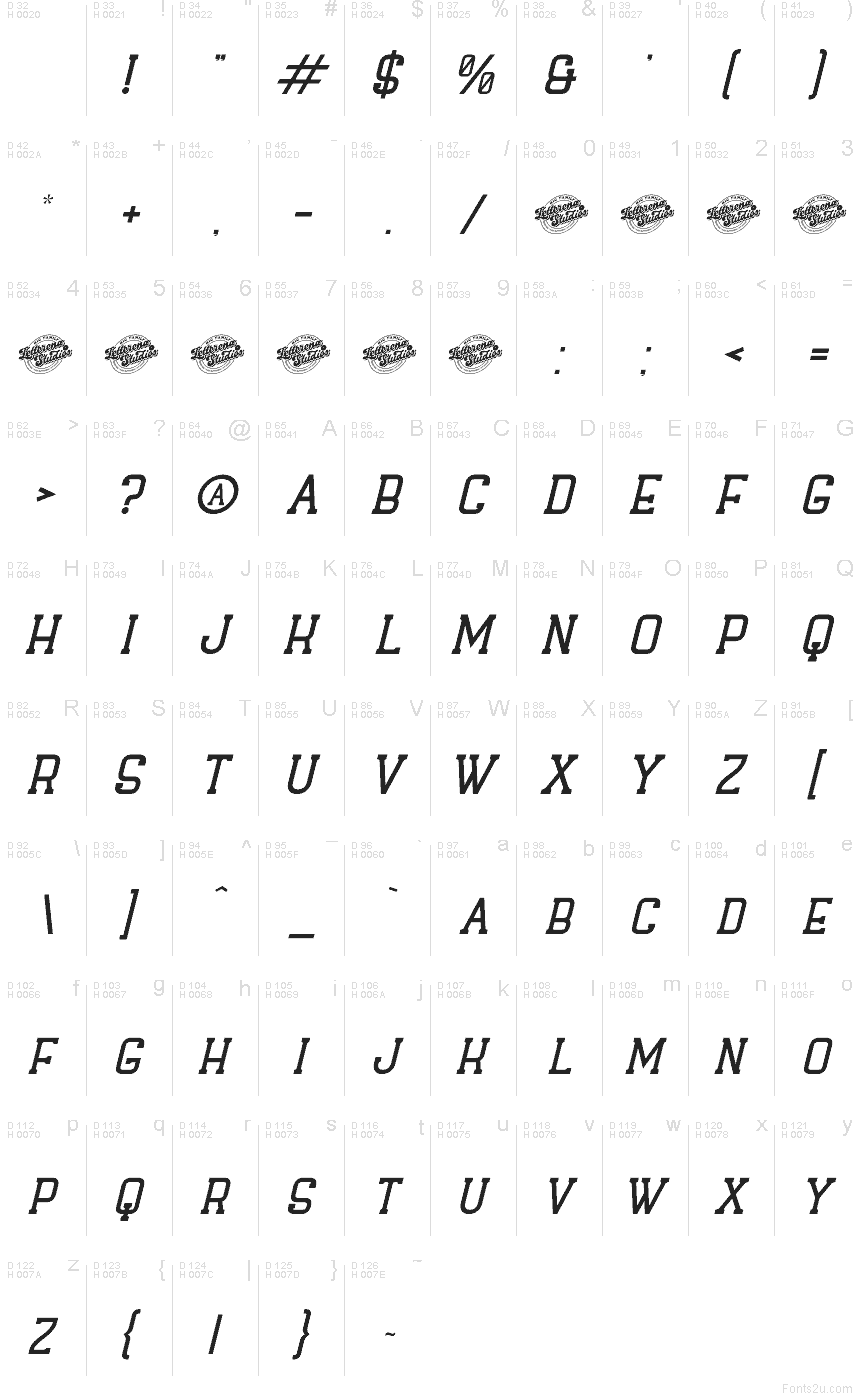
Hagofen DEMO VERSION Italic
Hagofen Italic font by Letterena Studios is a free serif typeface with a bold, racing–stripe energy. Its strong verticals, chiseled wedge-like serifs, and forward-leaning stance make every word feel like it’s in motion, even at rest. The letters lock together with a tight, confident rhythm, giving headlines a compressed, muscular look that feels both modern and slightly vintage—like classic sports branding pressed in fresh ink.
Using Hagofen Italic, this free font shines on sports logos, esports teams, bold posters, energetic event branding, packaging, and statement apparel graphics. It works beautifully when you push the size large and keep copy short, letting those angular shapes do the talking. Pair Hagofen Italic with a clean geometric sans for body text to balance its punchy attitude and keep layouts readable.